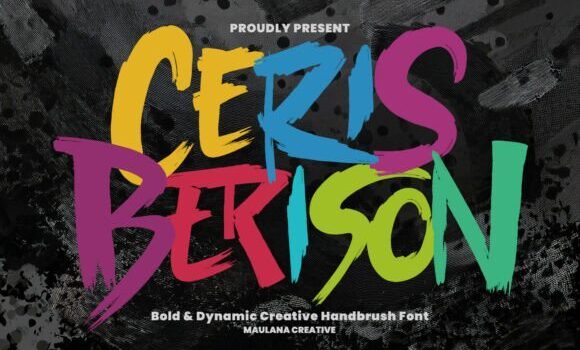
Ceris Berison Font – Free Download Introduction to Ceris Berison Font Ceris Berison is a fiercely bold and dynamic handbrush font designed to make an instant, unforgettable impact. 📸 Preview Gallery 5 images 📌 Product Name Ceris Berison Font 👤